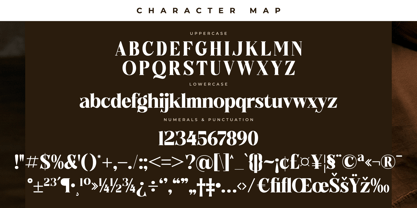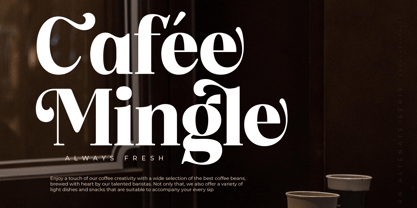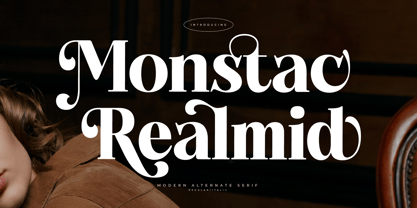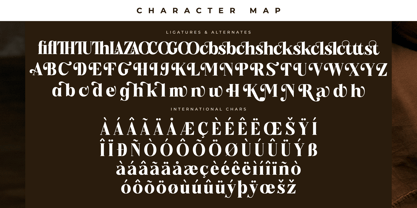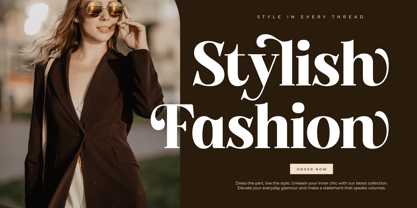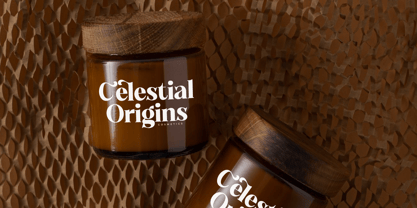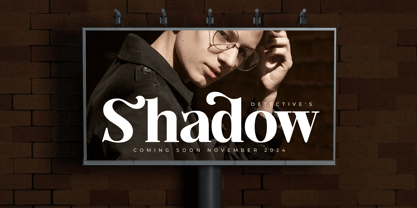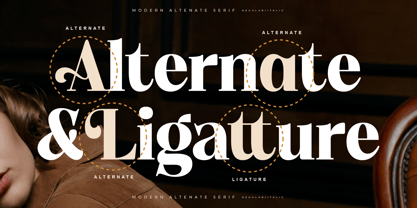
Monstac Realmid
The Monstac Realmid Font Family was designed by Heru Utama Putra and published by Letterena Studios. Monstac Realmid contains 2 styles and family package options. More about this family
Monstac Realmid is a modern and stylish serif font that combines sophistication with contemporary flair. Its clean lines and balanced proportions make it perfect for editorial designs, branding, and logos. With its versatility and timeless appeal, Monstac Realmid elevates any project with elegance and professionalism.